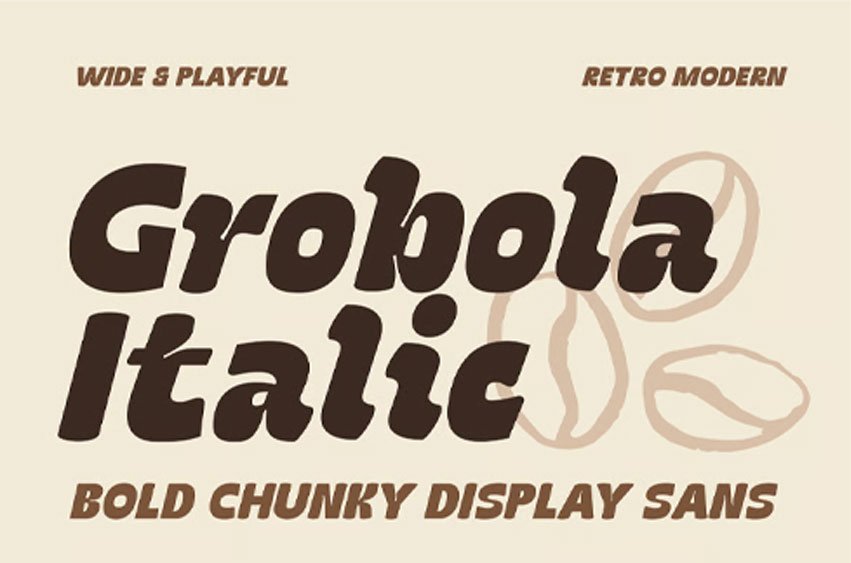
Grobola Italic Font is a bold, chunky display sans with a playful retro-modern feel. Its wide shapes, rounded curves, and strong italic style make it perfect for eye-catching headlines, logos, posters, packaging, stickers, labels, social media graphics, editorial titles, and fun branding projects.
This font brings a groovy, vintage, and energetic personality to any design that needs to look bold, friendly, and memorable.